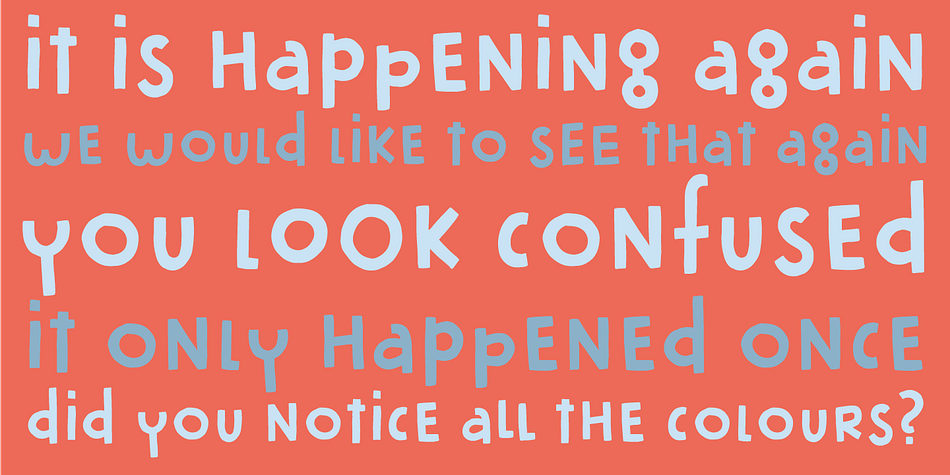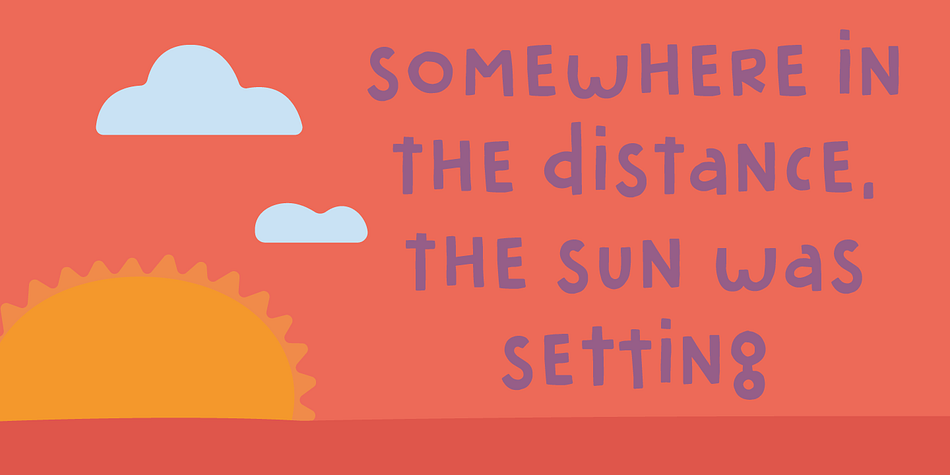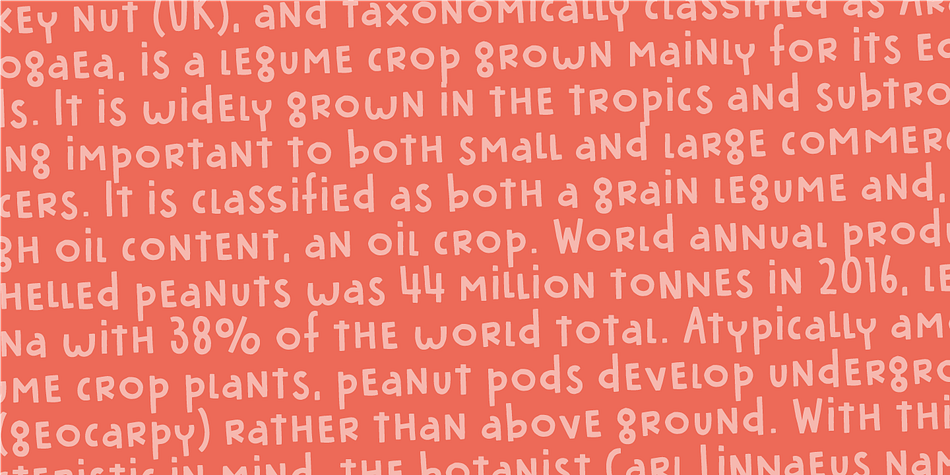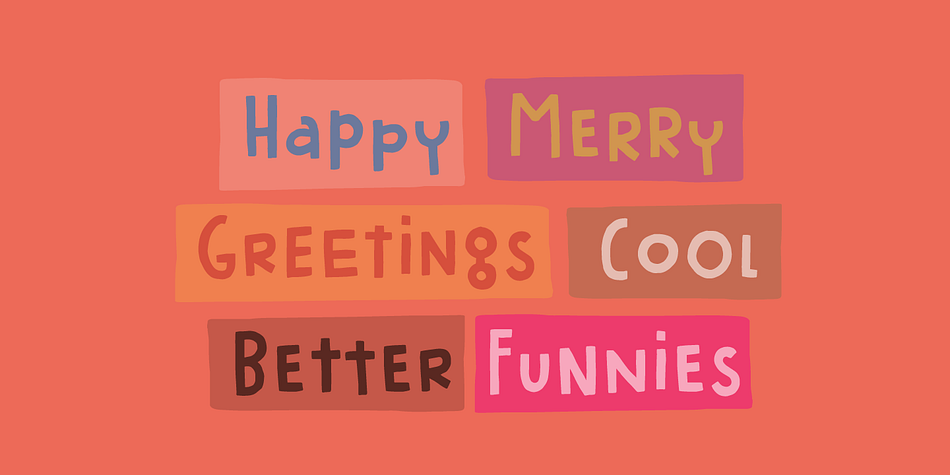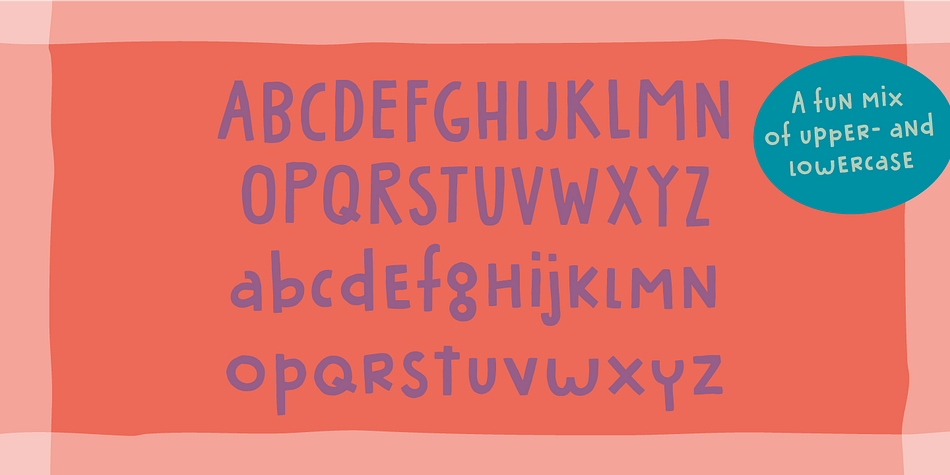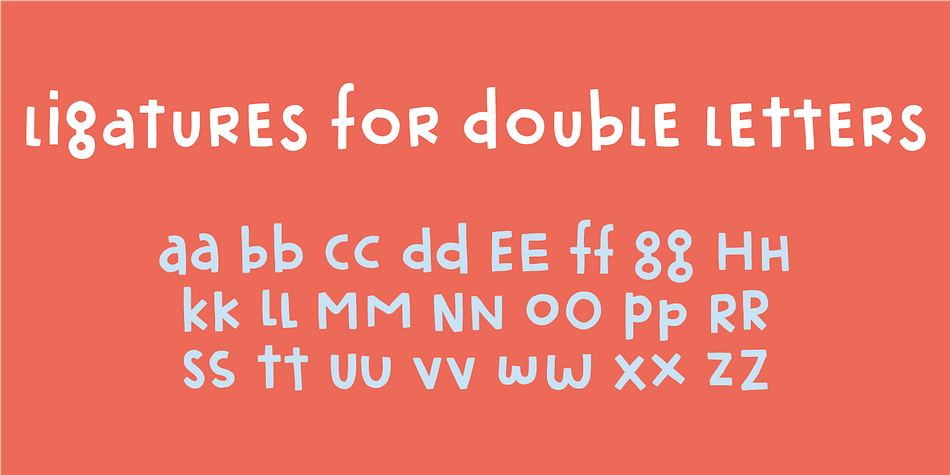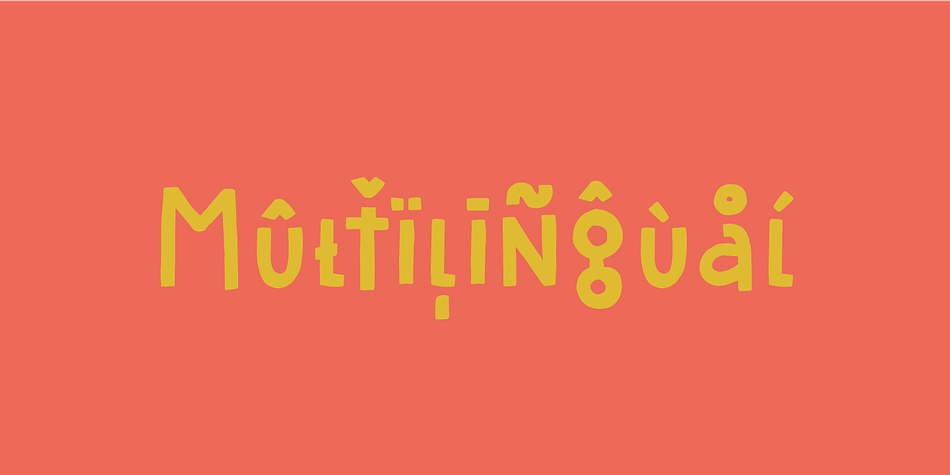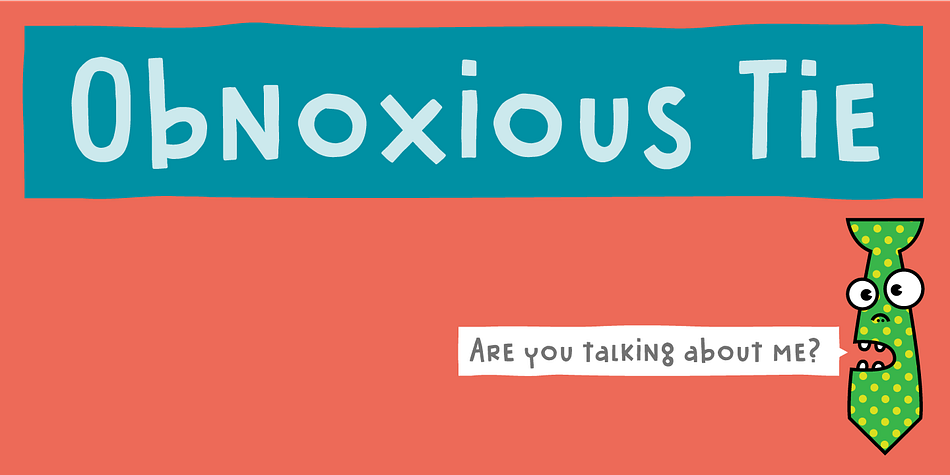
Designed by Jakob Fischer, Obnoxious Tie is a hand display and kids font family. This typeface has two styles and was published by Pizzadude.dk.
That tie you wore in the 1990’ies…the one from the 1980’ies…perhaps even the one from the 1970’ies…could look obnoxious today - or maybe ... it’s super fashionable these days! :)
This Obnoxious Tie is a mix of upper- and lowercase ... well, that goes for the “lowercase” - the uppercase is uppercase, just as usual!